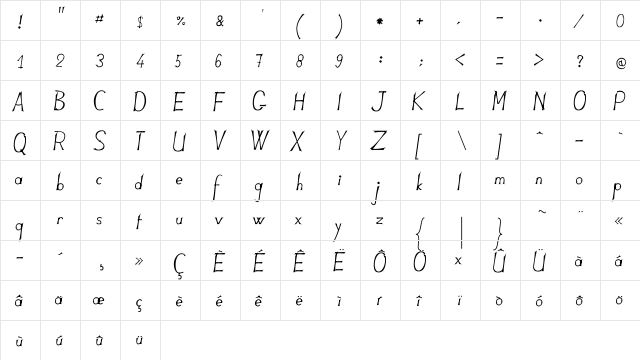
JBLames Regular
Design Context for JBLames Typeface
JBLames is a composed and adaptable typeface that performs quietly and consistently across a wide range of design contexts.